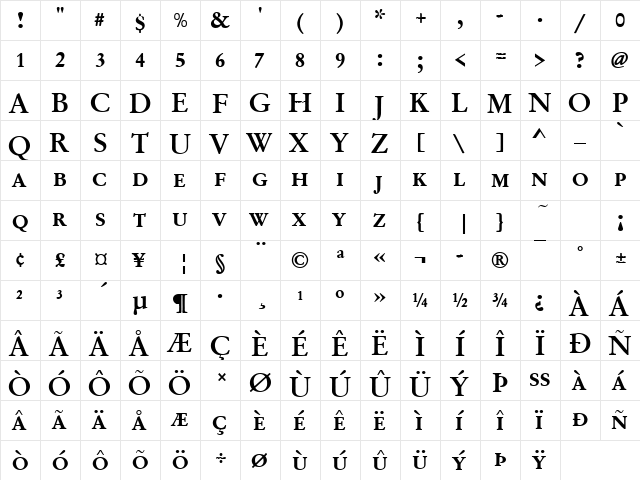
Garamond Becker No2 Discaps Med Regular
Design Context for Garamond Becker No2 Discaps Med Typeface
Garamond Becker No2 Discaps Med is a composed and adaptable typeface that performs quietly and consistently across a wide range of design contexts.